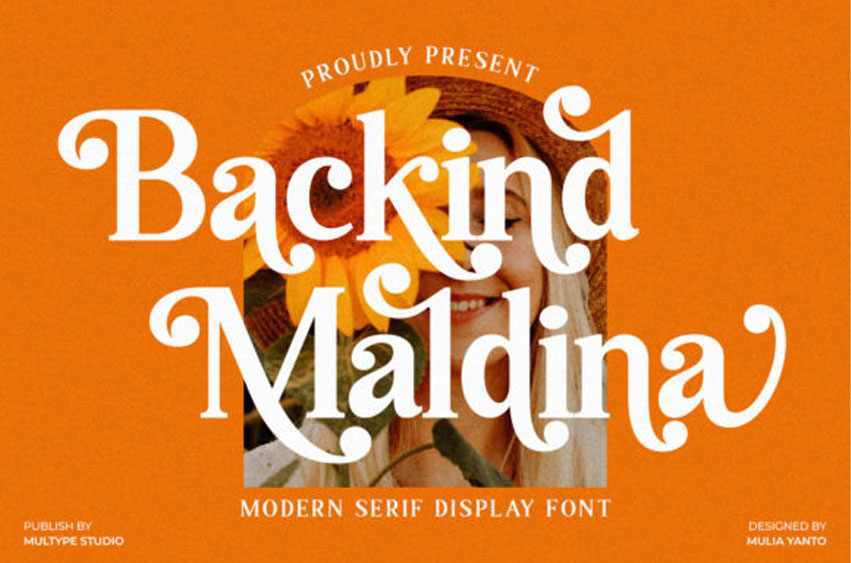
Backind Maldina Font
Backind Maldina Font is a chic, classy, and modern bold serif font.
This font is perfect for branding, logos, social media, advertisements, product packaging, watermarks, invitations, stationery, t-shirts, prints, posters, and more.